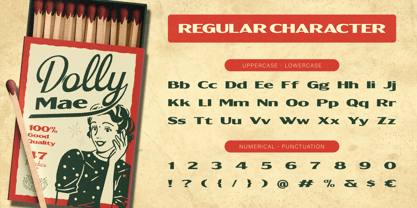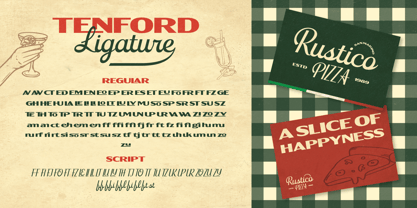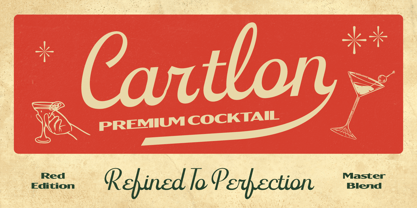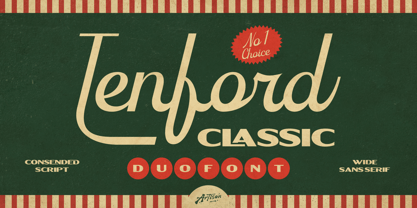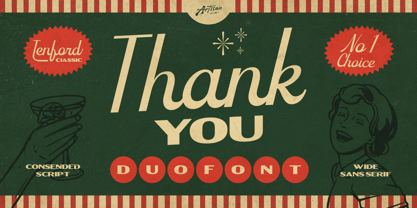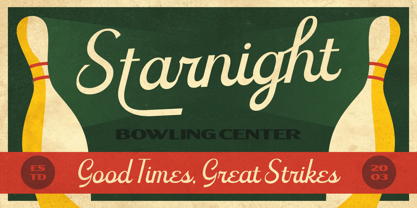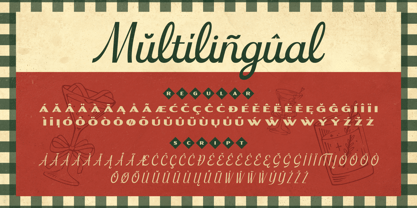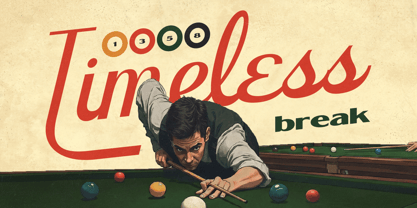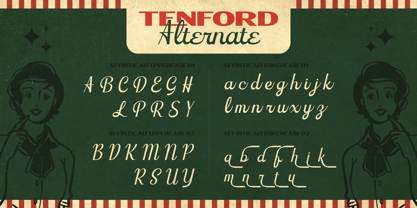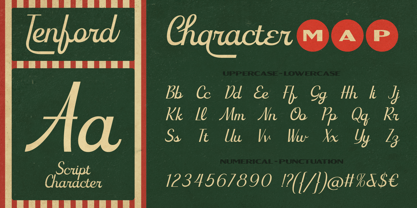
Tenford
The Tenford Font Family was designed by Meidy Meichico and published by Artisan Themes. Tenford contains 2 styles and family package options. More about this family
Tenford Vintage Duo Font is a timeless typeface that combines a smooth script with a bold sans serif. This vintage duo font is designed to bring a classic and nostalgic feel to your design while keeping it clean and modern.
Inspired by retro signage, old packaging, and mid-century advertising, Tenford Vintage Duo Font delivers a strong visual identity. The script font flows naturally with elegant curves, while the sans serif font adds bold contrast and readability.
If you are looking for a vintage duo font that is both stylish and versatile, Tenford Vintage Duo Font is the perfect choice.
Tenford Vintage Duo Font offers a perfect combination of elegance and strength. The script font gives a handcrafted and personal touch, while the sans serif font creates a bold and professional look.
This vintage duo font works beautifully for both modern and retro designs. You can use them together or separately depending on your project needs.
Perfect for: Vintage & retro branding, Logo design, Packaging (food, beverage, coffee, cocktail, etc.), Posters & signage, Social media graphics, Headlines & editorial layouts
Features: A - Z set (Uppercase & Lowercase), Number, Punctuation, Alternates, Ligatures, Multilingual